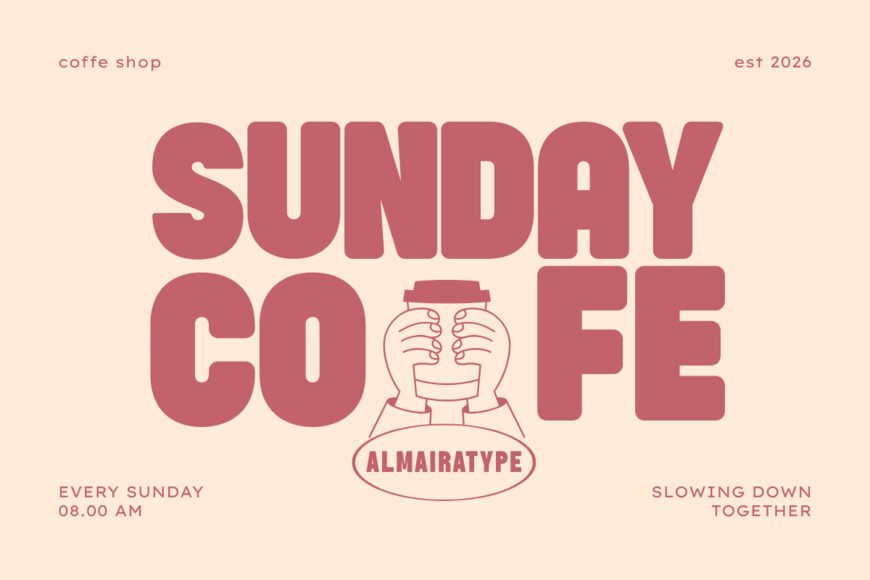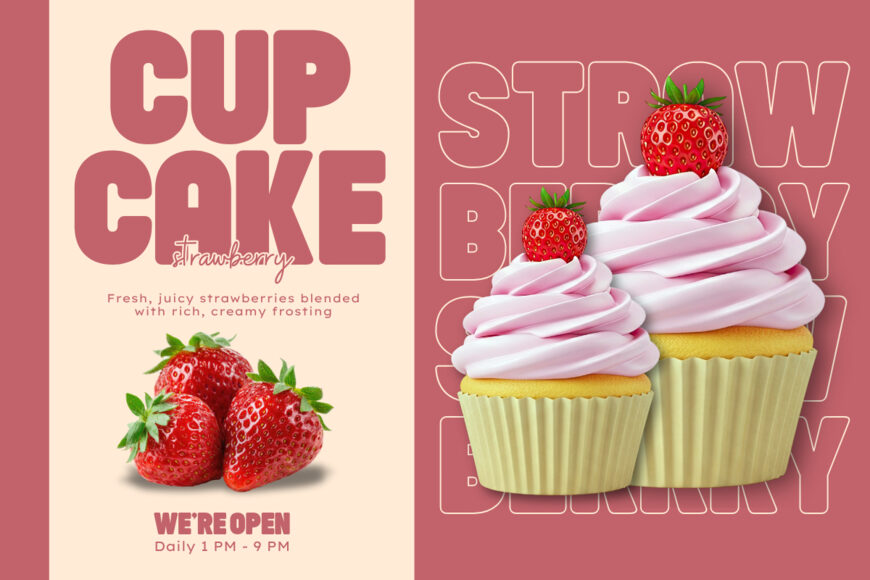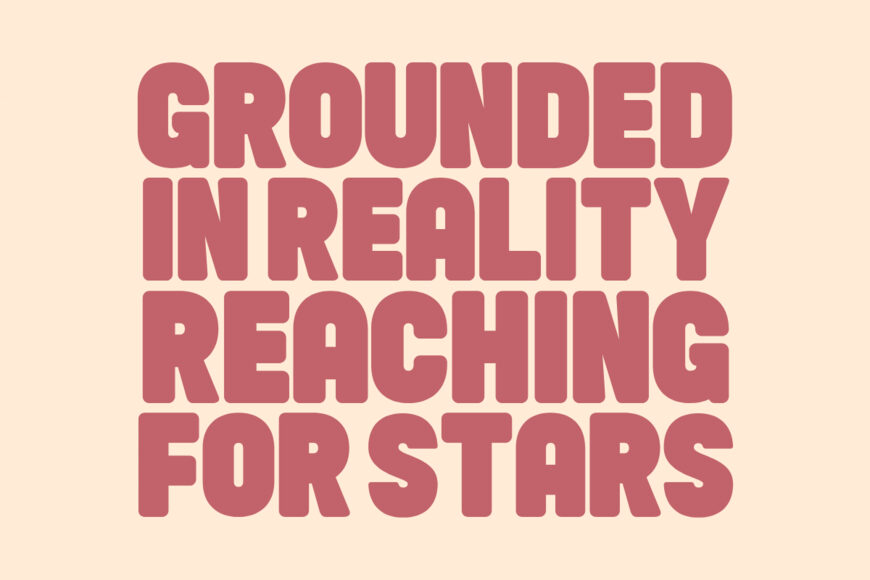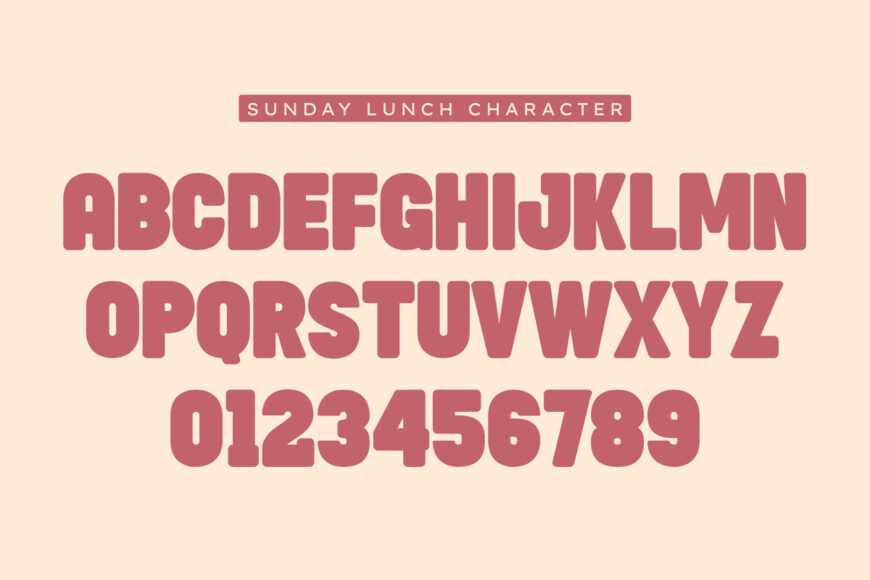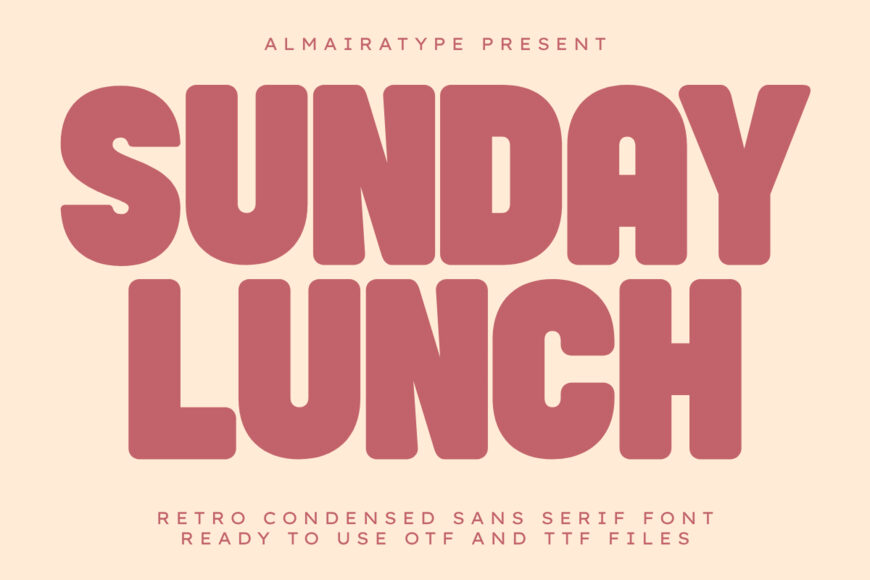
Sunday Lunch Font
Make a bold, commanding, and delightfully nostalgic statement with Sunday Lunch, an ultra-bold retro condensed sans serif font engineered for creators who want their headlines to pop with a fun, vibrant charm.
Meticulously structured with a heavy display weight, balanced tall geometric baselines, and subtly softened profiles, this versatile font brings an instant blend of vintage warmth and clean modern professionalism to any creative canvas.